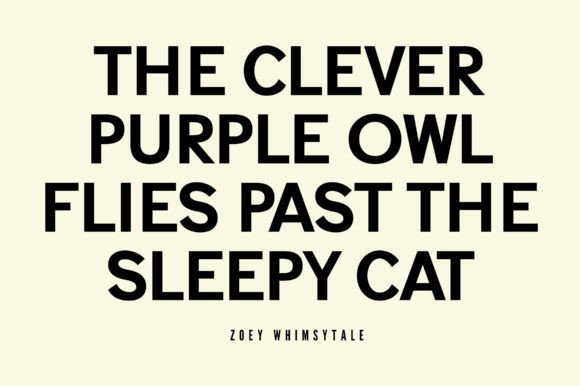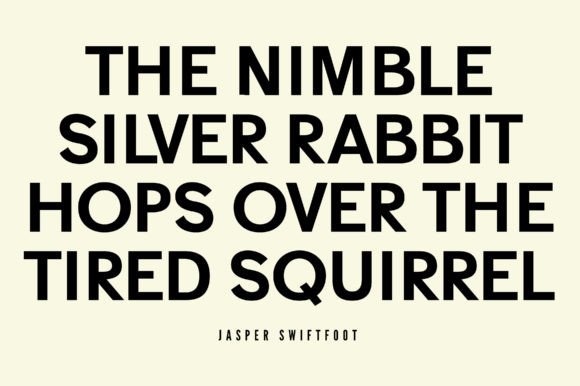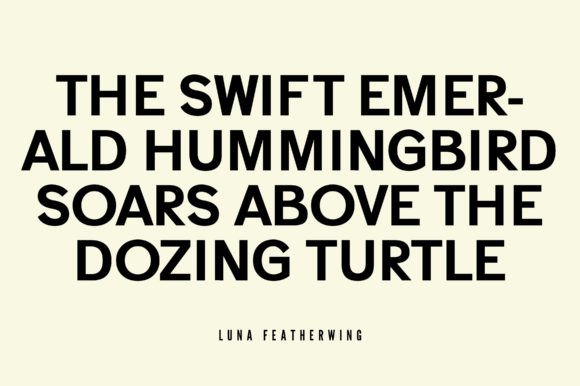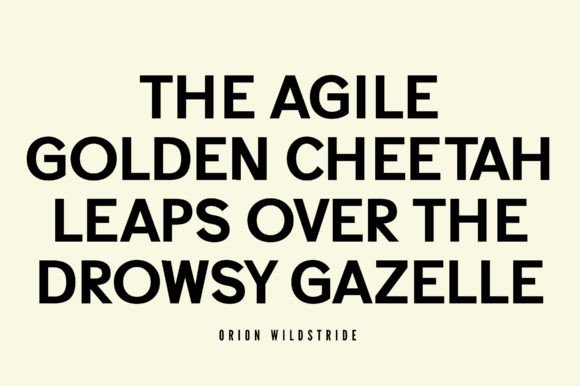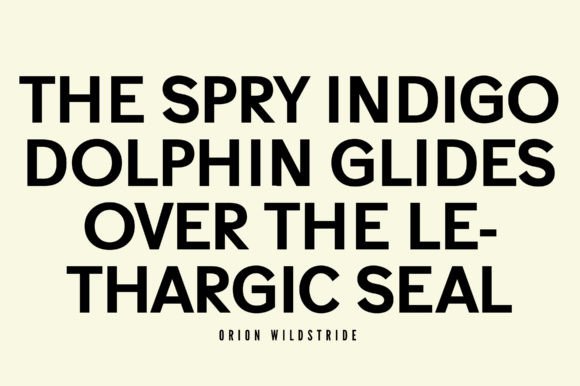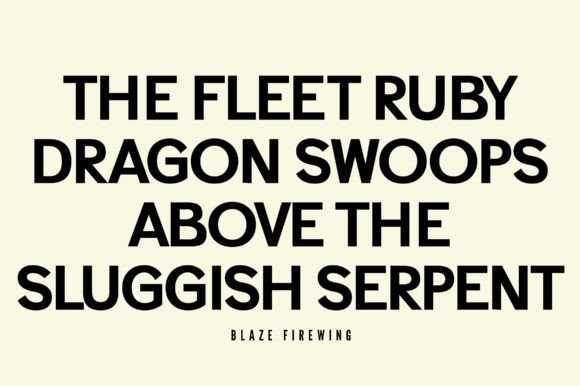
Introduction to Neropark Font
Remember that moment when you’re working on a creative project, and you’re struggling to find the perfect font to bring your design to life? The one that’s going to make your logo pop, or your branding stand out from the crowd? You’re not alone. As designers, we’ve all been there, scrolling through font libraries, searching for that elusive combination of style and sophistication.
That’s where the Neropark Font comes in – a game-changing design resource that’s about to become your new go-to. With its clean lines, sleek proportions, and high-quality aesthetic, this geometric sans serif typeface is the perfect addition to any design project. And the best part? It’s available for free download, making it an accessible and valuable resource for designers of all levels.
Key Features of Neropark Font
- High-quality, unique design that serves as an ideal design resource for creative projects.
- Comes with a transparent background, allowing for seamless integration into various design compositions.
- Features a clear and legible font style, suitable for use in a variety of contexts, including logos, typography, and more.
- Designed with a high resolution (at least 300 DPI) for crisp and clear rendering in print and digital applications.
- Perfect for designers seeking a distinctive and creative font to elevate their projects and stand out in the market.
Honest Review: Neropark Font
I recently came across the Neropark Font and was eager to give it a try. As a designer, I appreciate a good free download that can elevate my creative project.
Here are some things that work well with the Neropark Font: ✨
- High quality design that’s perfect for modern projects
- Easy to read even with a transparent background, making it ideal for creative designs
- Wide range of styles and weights available for customization
- Not as many language support options as some other fonts
- Some users may find the font a bit too bold or overpowering
Overall, I’m impressed with the Neropark Font. It’s a solid addition to any design resource and can definitely help take my projects to the next level. With a little creativity, I think it has the potential to be a go-to font for many designers.
Neropark Font
Tips for Getting the Most Out of Neropark Font
Use the font in bold or italic styles to add emphasis to your text. Experiment with different font sizes and colors to create visually appealing designs.
Neropark Font is ideal for creative projects such as logos, business cards, and social media graphics. Its unique design makes it perfect for adding a touch of personality to your brand’s visual identity.